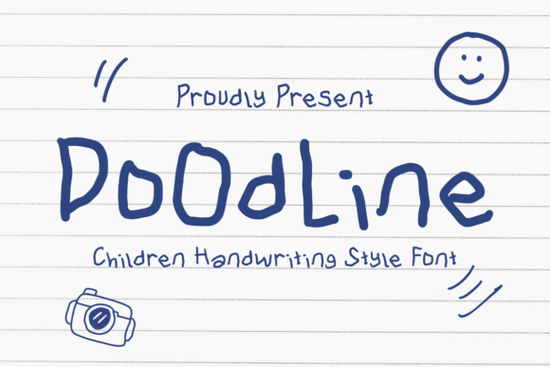
If you’ve ever tried to capture the carefree energy of childhood in a design whether it’s for a birthday invitation, a kids’ book cover, or a playful product label you know how hard it is to find a font that feels genuinely joyful without tipping into chaos. That’s where Doodline Font comes in. With its hand-drawn lines and whimsical character shapes, Doodline mimics the spontaneous scribbles of a child’s artwork while staying legible and versatile enough for real-world use.
Unlike overly polished script fonts or rigid display typefaces, Doodline leans into imperfection as part of its charm. Each letter looks like it was drawn with a chunky crayon or marker slightly uneven, full of personality, and brimming with warmth. It’s this balance of structure and spontaneity that makes it especially useful for designers working on projects aimed at kids, families, or anyone who appreciates a lighthearted aesthetic.
What kinds of projects work best with Doodline?
Doodline shines in contexts where fun and approachability matter most. Think:
- Kids’ party invitations – Pair it with bright colors and playful illustrations for instant cheer.
- Children’s book titles or chapter headers – It complements illustrated stories without competing with them.
- Crafting templates – Use it for printable coloring pages, DIY greeting cards, or scrapbook elements.
- Small business branding – Ideal for toy shops, daycare centers, or family-friendly cafes looking to convey warmth.
- Print-on-demand products – T-shirts, mugs, or wall art featuring encouraging quotes or silly sayings feel more authentic with Doodline’s handcrafted vibe.
Because it’s designed with bold strokes and open forms, Doodline remains readable even at smaller sizes unlike many novelty fonts that become muddy or illegible when scaled down.
How does it compare to other playful fonts?
While there are plenty of “fun” fonts out there, few manage to feel both spontaneous and intentional. For example, if you’re drawn to handwritten styles but need something slightly more refined for teacher-themed designs, you might also consider the Kindness Teacher Font, which offers a gentler, classroom-appropriate script. Or if you love personal, signature-like lettering, the Signature Font collection provides elegant alternatives for more mature audiences.
For seasonal or romantic projects, fonts like Lovely Valentine Duo bring warmth through soft curves rather than doodle energy. And if your aesthetic leans rustic or cozy, the Farmhouse Font delivers charm with a vintage twist. Meanwhile, the Gather of Good Font blends modern minimalism with friendly handwriting great for lifestyle brands.
But when your goal is pure, unfiltered playfulness? Doodline stands apart. It doesn’t just look like a kid drew it it feels like one did, and that emotional resonance is hard to replicate.
Is Doodline easy to use for beginners?
One helpful tip: because of its bold, irregular lines, Doodline pairs best with clean, simple sans-serif fonts for body text (like Montserrat or Open Sans). This contrast keeps your layout balanced playful headlines with clear supporting information.
- ✅ Confirm your project calls for a childlike tone not just “cute,” but authentically youthful and energetic.
- ✅ Test readability at your intended size (especially for printed items).
- ✅ Pair it with neutral or complementary fonts for longer text blocks.
- ✅ Consider layering it with doodle-style graphics or watercolor textures to enhance the handmade feel.
If your next design needs to smile back at the viewer, Doodline might be exactly the friendly nudge your creative project deserves.